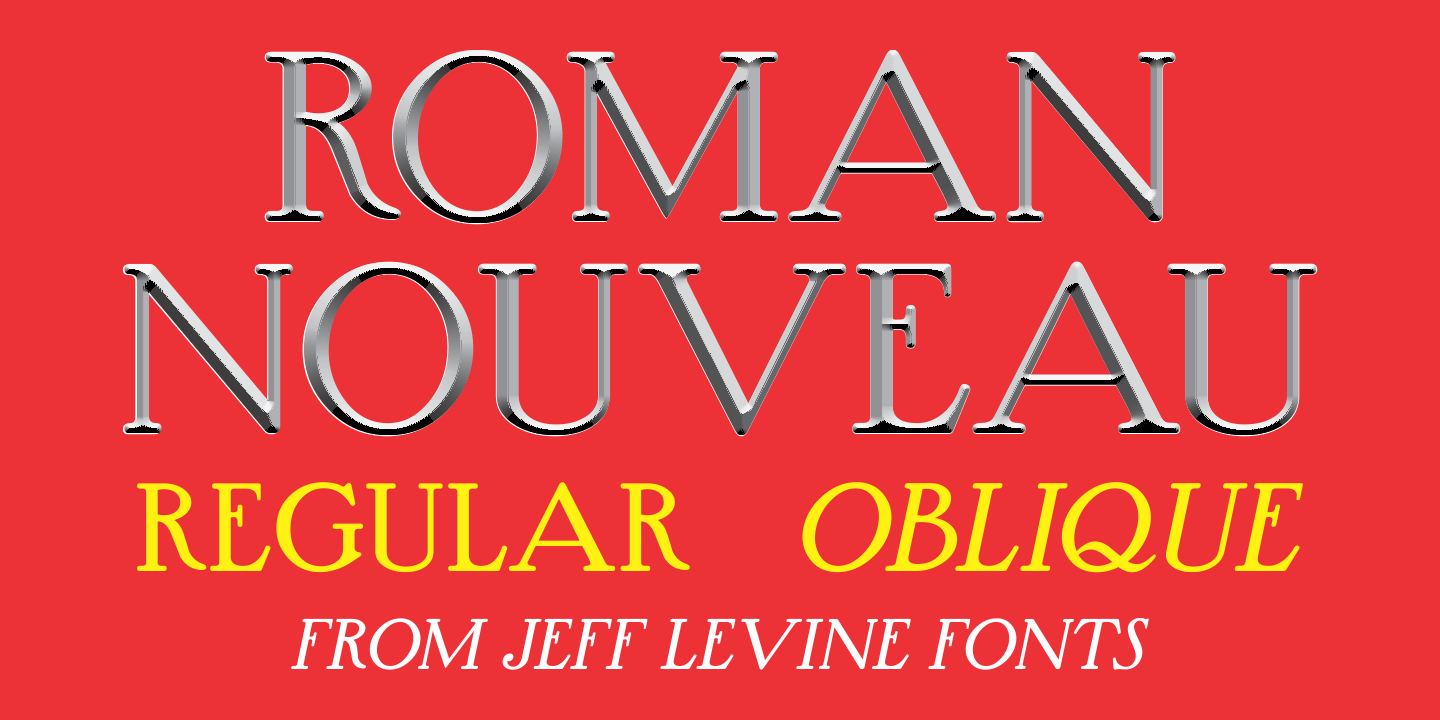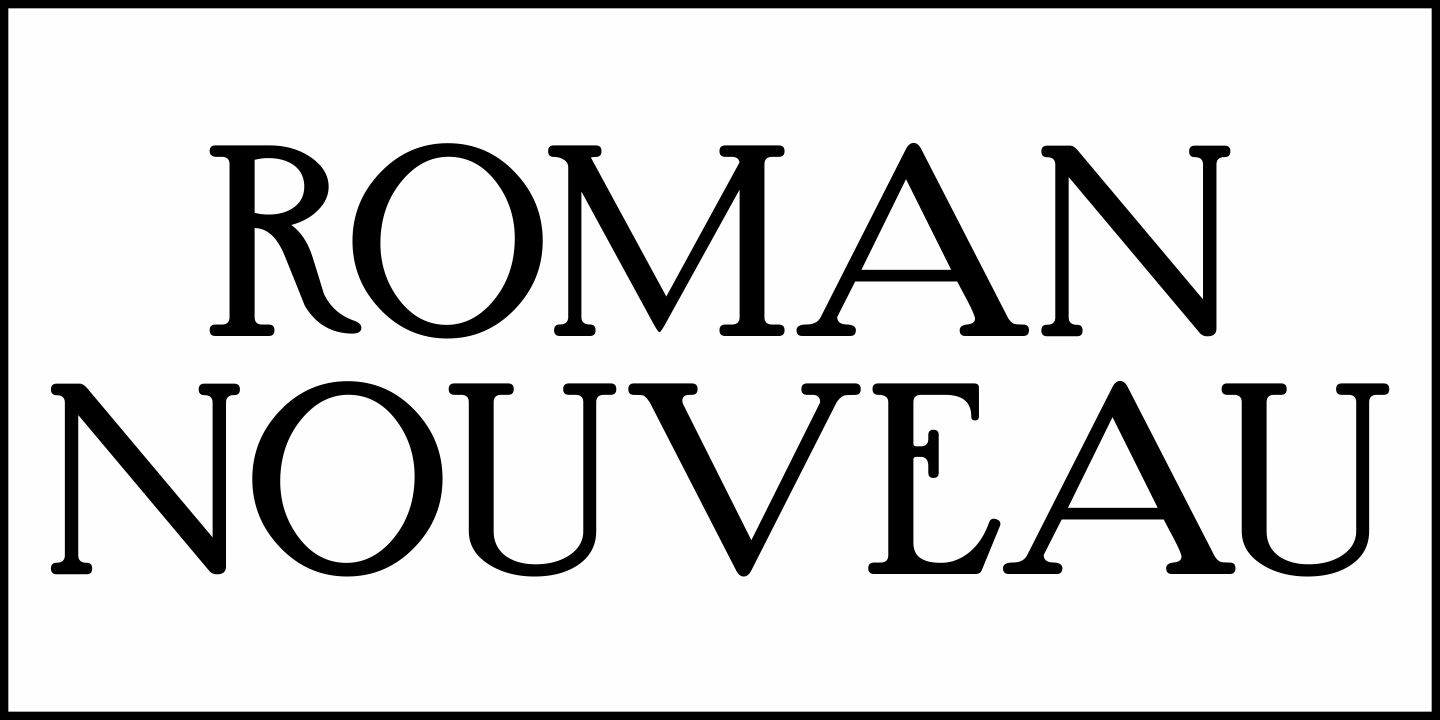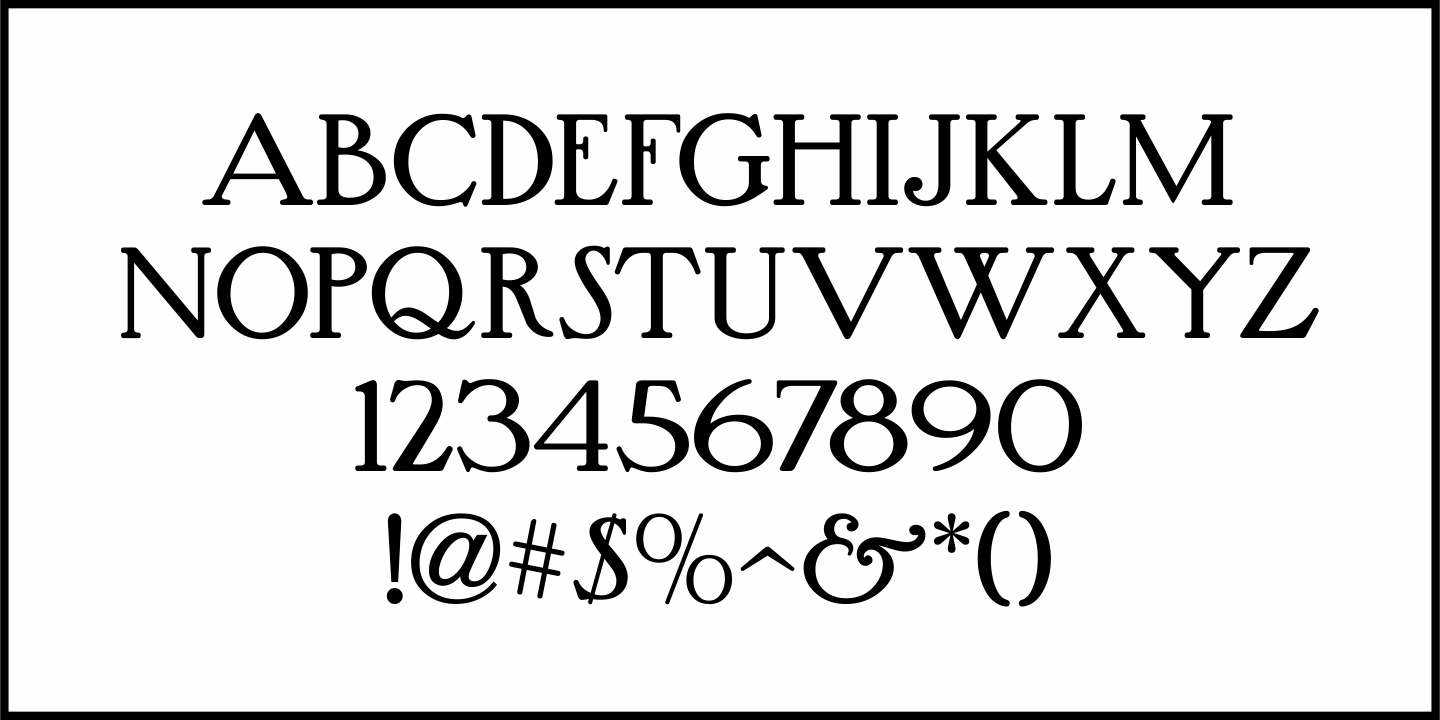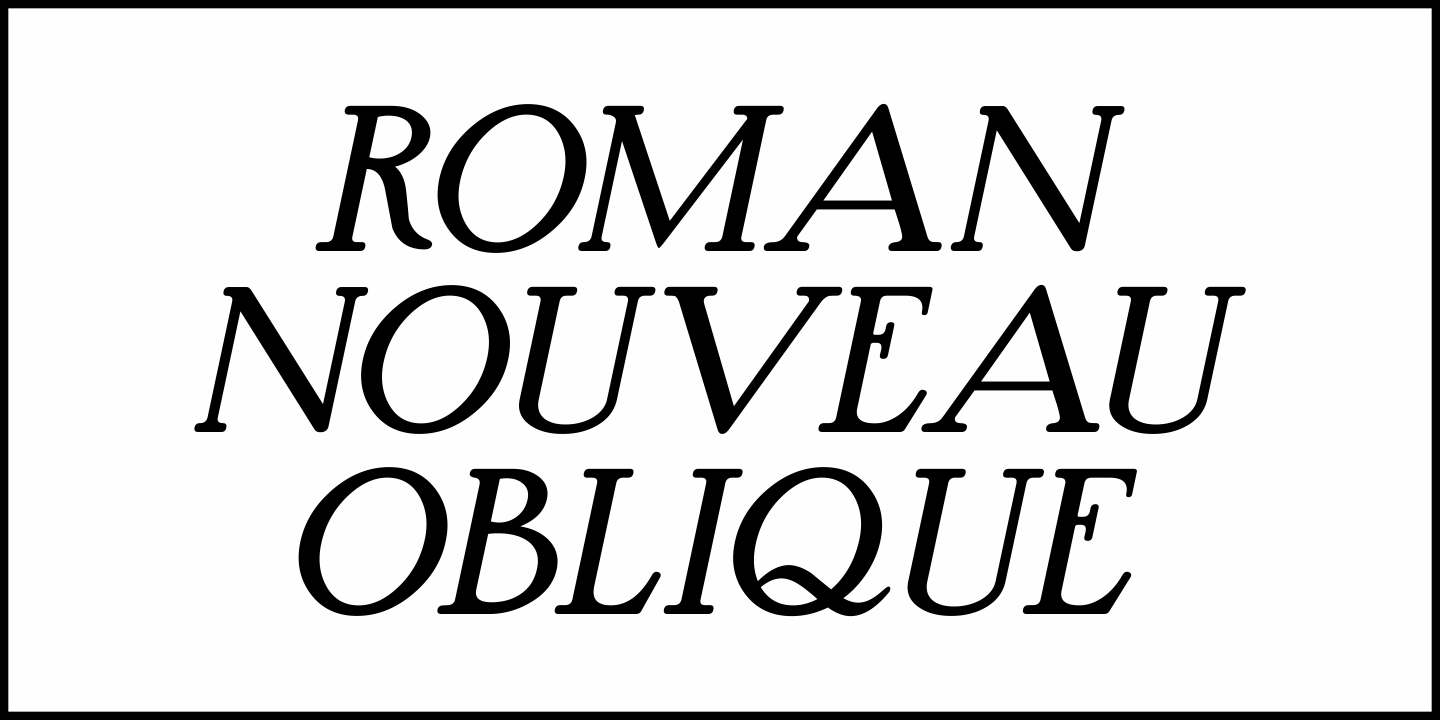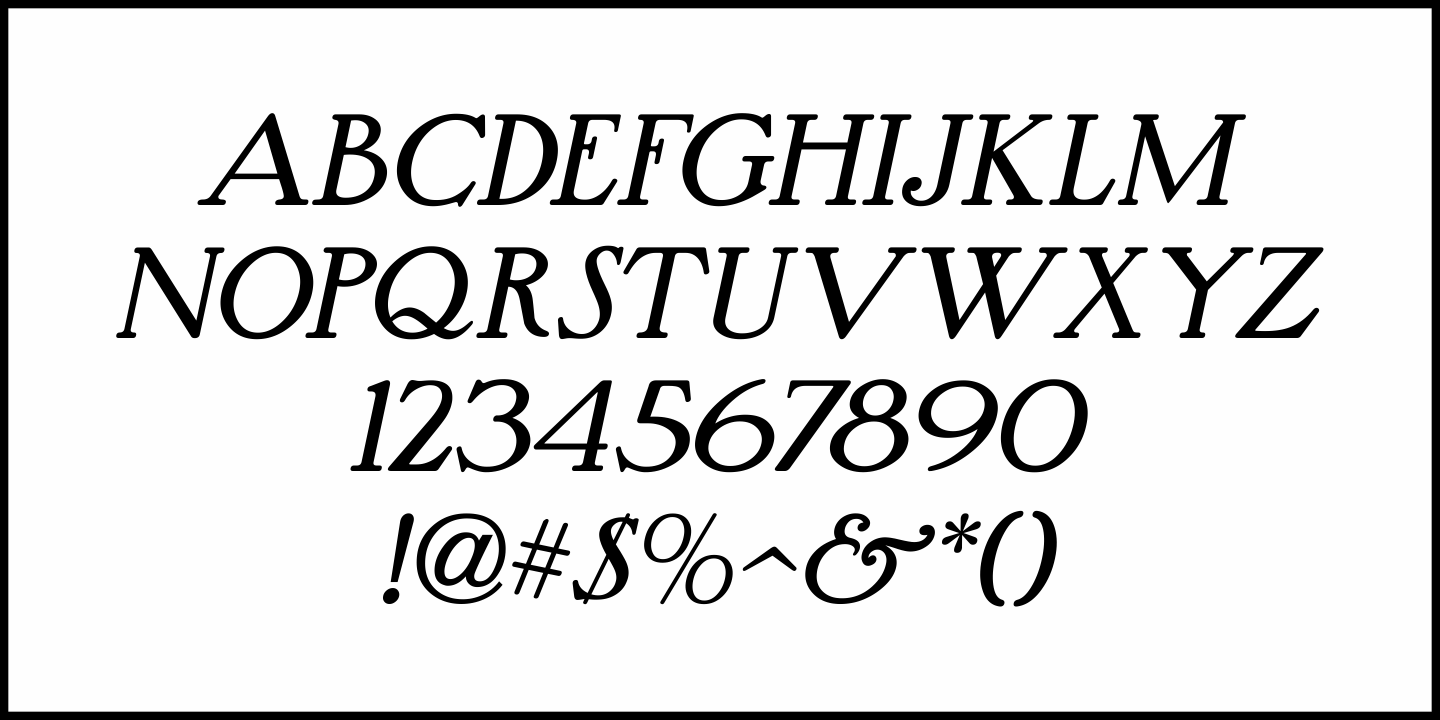
Roman Nouveau
In the 1904 book “Letters & Lettering” by Frank C. Brown is a page of Roman style upper case letters entitled “Modern American Capitals – after Will Brady”.
The slab serif, Art-Nouveau-influenced alphabet inspired a digital version. Roman Nouveau JNL, is available in both regular and oblique versions.